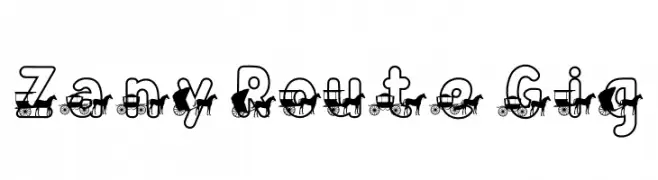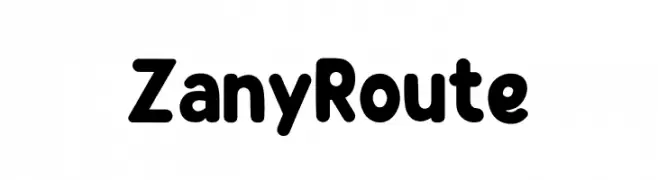
( Fonts by PutraCetol Studio )
A playful, bold font with rounded edges and a bubbly appearance.
( Fonts by PutraCetol Studio )
A whimsical font with horse and carriage motifs integrated into each character.